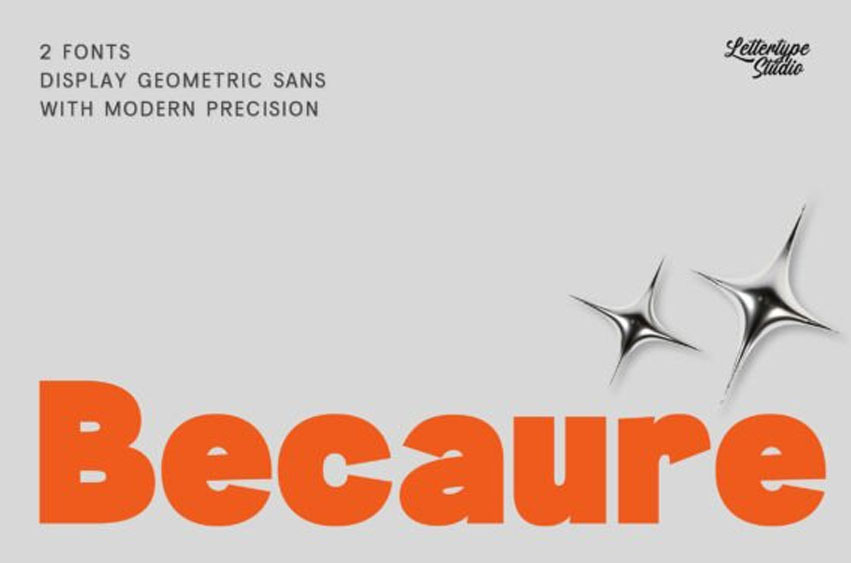
Becaure Font
Becaure Font is a modern geometric sans serif typeface designed to capture clarity, structure, and contemporary visual energy.
Built from precise circular geometry and balanced proportions, the typeface delivers a clean yet commanding tone—ideal for designers seeking a modern voice that remains highly legible and brand-ready.
Infused with subtle Y2K revival aesthetics, Becaure thrives in high-visibility environments such as campaign headlines, digital posters, and brand activations. Its structured forms provide professional reliability, while its display presence ensures strong visual memorability across both print and screen media.
This display geometric sans is built for the modern era, offering a heavyweight that feels grounded, authoritative, and incredibly sleek. The Becaure typeface strips away the unnecessary to focus on bold shapes and perfect balance, making it a powerhouse for tech branding, architectural portfolios, and cinematic titling.
Because of its massive presence, the Becaure font works exceptionally well in high-contrast environments—think neon colors on dark backgrounds or stark black-and-white layouts. Use it when you need your message to be unmissable. It pairs beautifully with thin, monospaced fonts to create a “tech-industrial” vibe that is both futuristic and timeless.
– Branding & Visual Identity
– Campaign & Advertising Design
– Posters & Event Promotions
– Logo & Wordmark Creation
– Digital Hero & Web Headlines